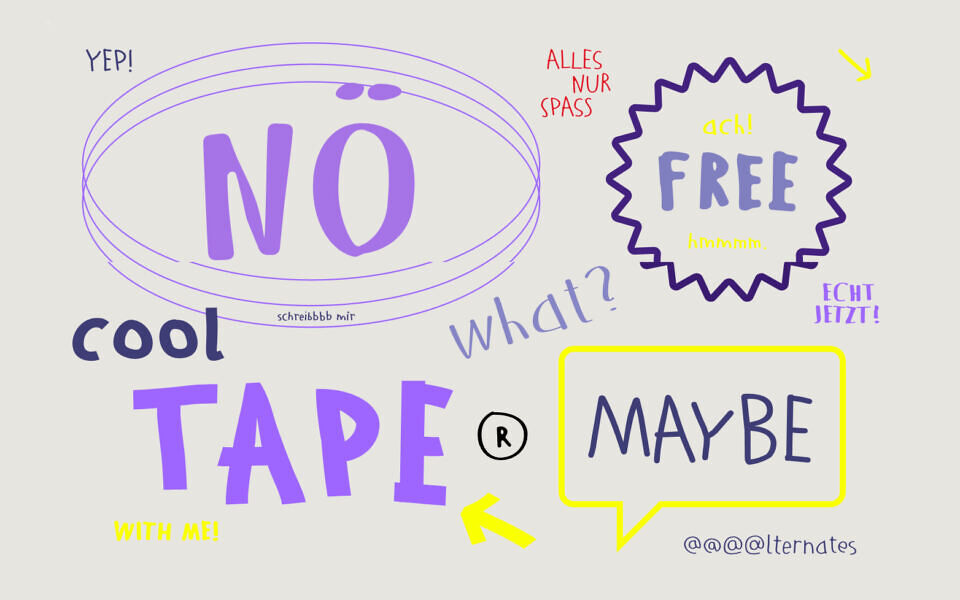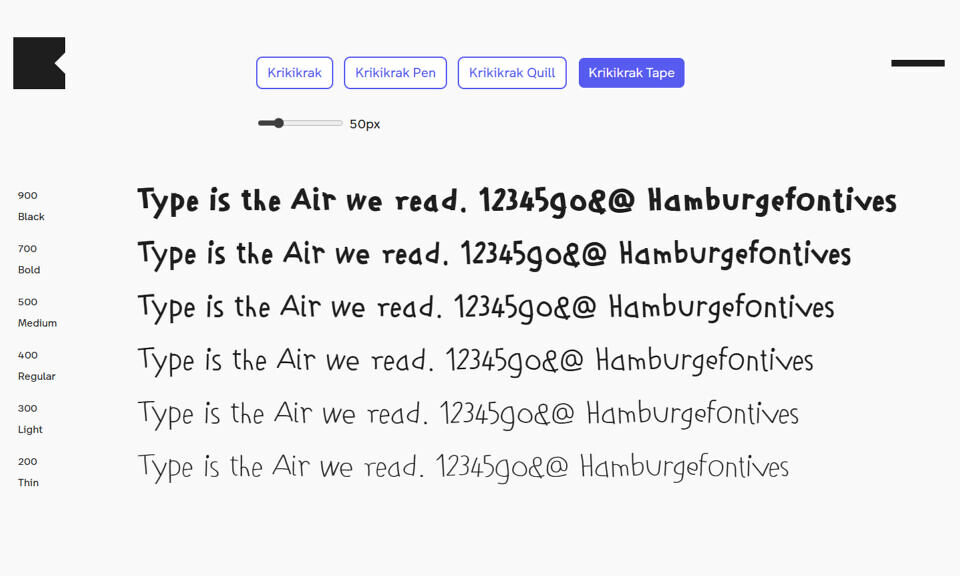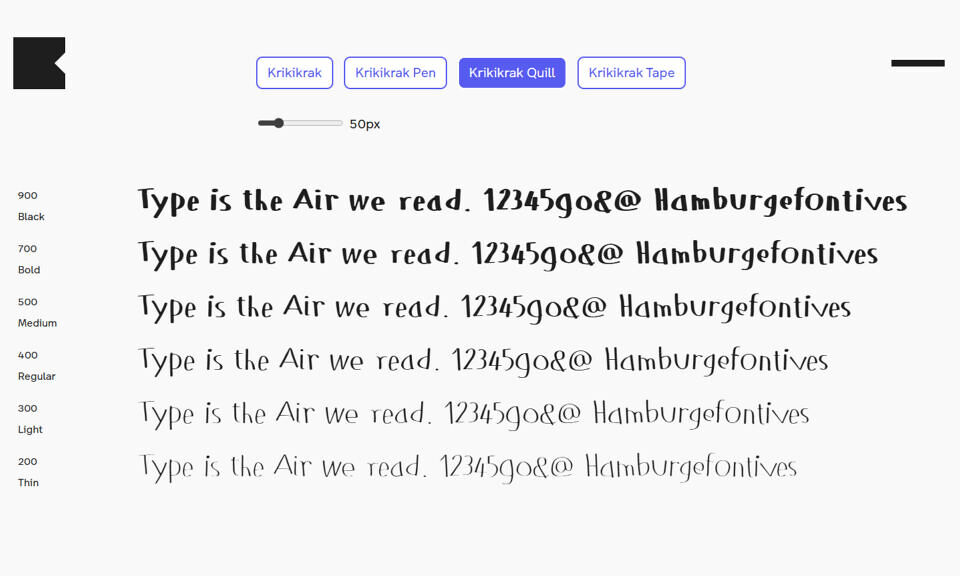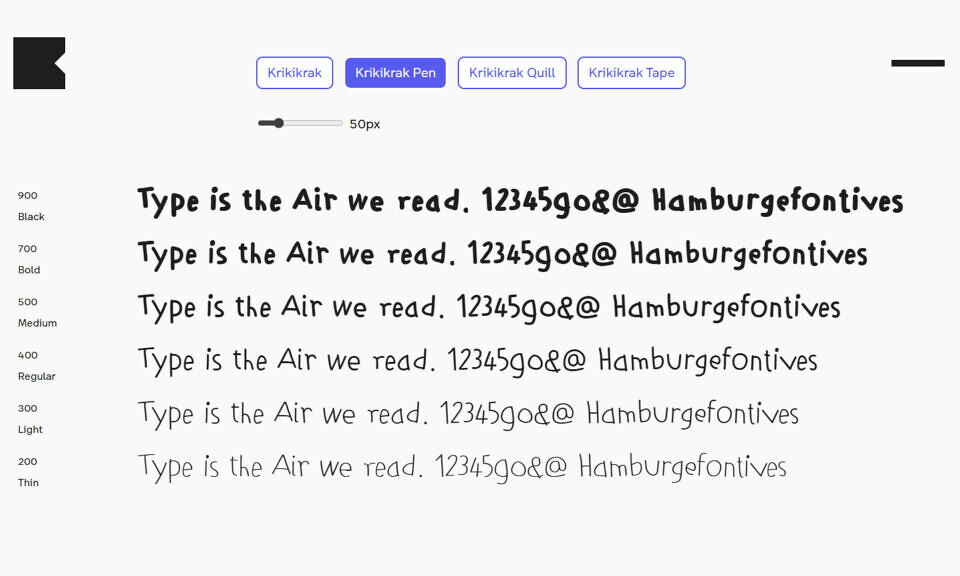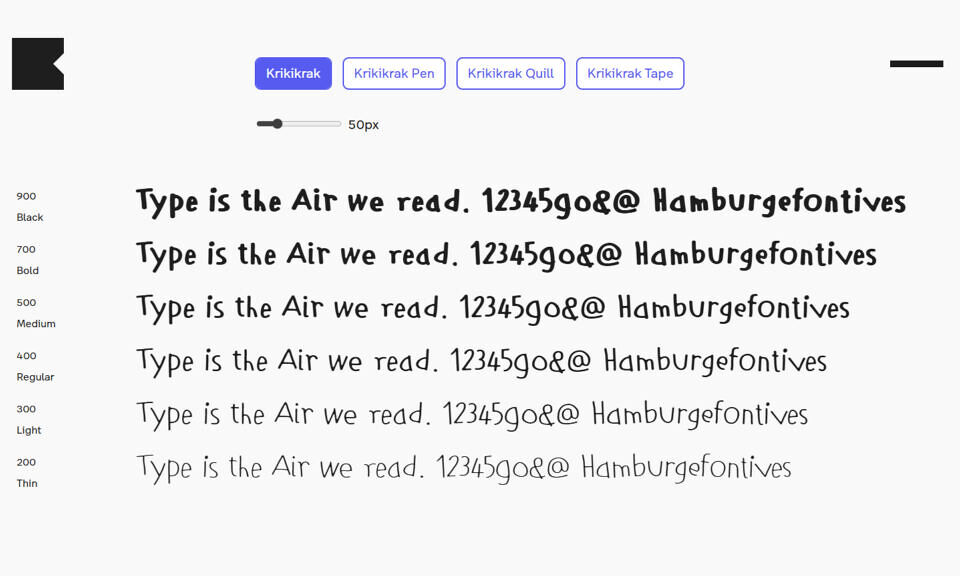
Krikikrak is a dynamic and versatile font family that captures the spontaneous energy of authentic handwriting. Its name, German for “scrawl,” perfectly describes its playful, doodle-like character.
The collection features four distinct styles: the base Krikikrak scrawl, the rounded Pen, the calligraphic Quill, and the blocky Tape. Each style comes in six weights, from Thin to Black, offering immense flexibility.
Smart OpenType features provide alternate characters, ensuring a natural, non-repetitive look ideal for projects that demand a personal, informal, and direct touch.